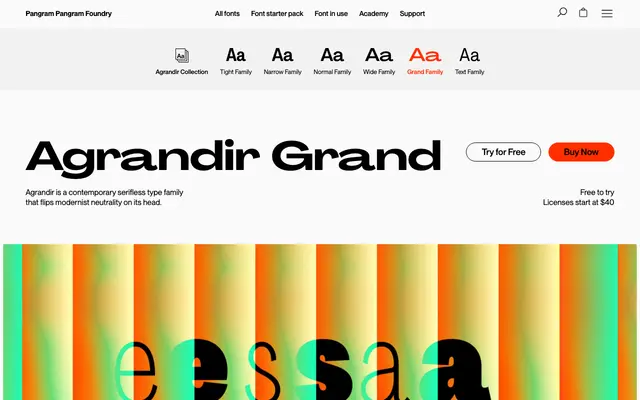
Agrandir Grand
The widest width in Alex Slobzheninov's Agrandir system, built for big, expressive headline settings.
The Grand width of Agrandir, drawn by Alex Slobzheninov as the most extended cut in the system. Fourteen styles span seven weights from Thin to Black with italics and 443 glyphs per weight. The same alternates and stylistic presets carry through, so Grand can sit beside the Normal, Wide and Tight widths in a single family hierarchy.